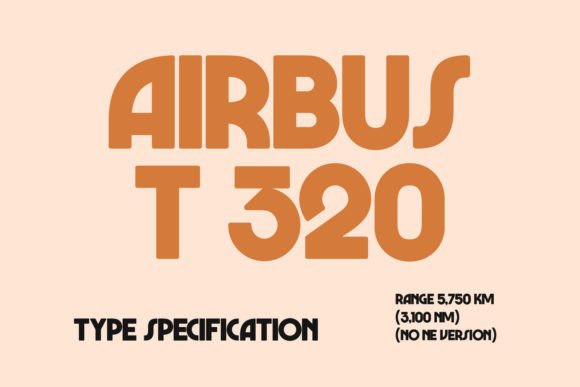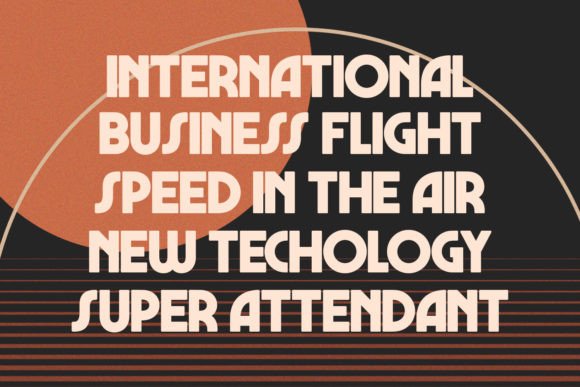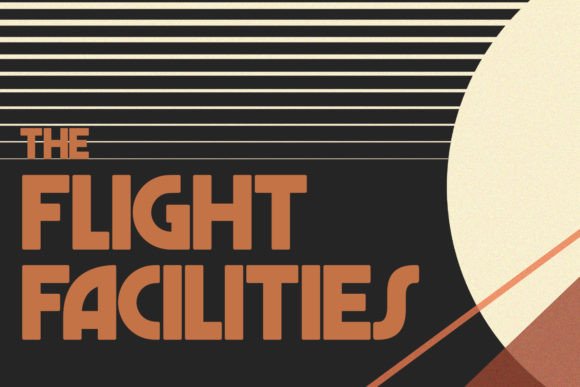
Introduction to Monatic Font
As a designer, have you ever found yourself stuck in a creative rut, struggling to find the perfect font to bring your project to life? You’re browsing through design resources, searching for that one font that will make your logo pop, or give your social media posts a unique touch. And then, it happens – you stumble upon a font that makes your heart skip a beat. For me, that font was Monatic Font, an all-caps retro vibe sans display font that’s bursting with personality and style.
With its bold stroke and fun character, Monatic Font is the perfect addition to any design project. But what really sets it apart is its versatility – from logo design to movie titles, books, and even social media posts, Monatic Font is the ultimate design resource. Plus, with over 100+ language support, you can use it to connect with audiences from all over the world.
Key Features of Monatic Font
- High-quality, professional design for creative projects
- Transparent background, allowing for seamless integration with images
- Includes a range of weights and styles to suit various design needs
- High-resolution design, suitable for print and digital applications
- Designed to be highly legible and versatile for use in various creative projects
Honest Review: Monatic Font
One of the things that stands out about the Monatic Font is its high quality. The characters are crisp and clean, making it perfect for use in creative projects where typography plays a key role.
Here are some of the things that I like about the Monatic Font:
- ✨ Beautifully designed characters that are easy to read
- ✨ Supports transparent background, which is a must for modern designs
- ⚠️ Limited font weights and styles, which may limit its use in certain design applications
- ⚠️ Not suitable for use in professional projects where high-end typography is required
Overall, I’m impressed with the Monatic Font and would definitely recommend it to designers who are looking for a high-quality, free font to use in their creative projects.
Monatic Font
The Monatic Font is a versatile design resource ideal for various creative projects. It offers a high-quality, transparent background, making it suitable for any visual project. Whether you’re working on a graphic design, logo creation, or document editing, this font is an excellent choice.
To get the most out of Monatic Font, experiment with different font sizes, colors, and styles to find the perfect combination for your project. You can also use it in conjunction with other design elements to create a visually appealing design.
The Monatic Font is suitable for various creative projects, including graphic design, logo creation, document editing, and social media graphics. Its high-quality, transparent background makes it an excellent choice for any visual project.